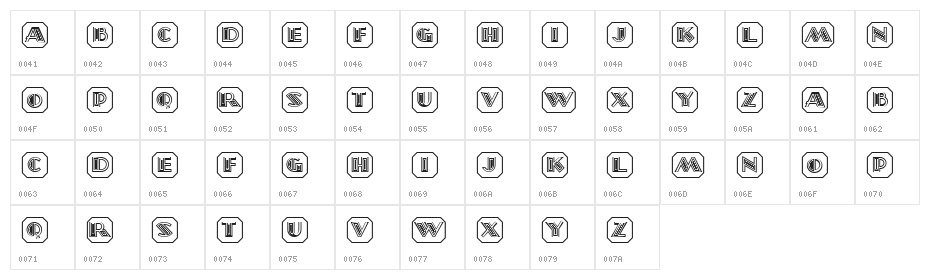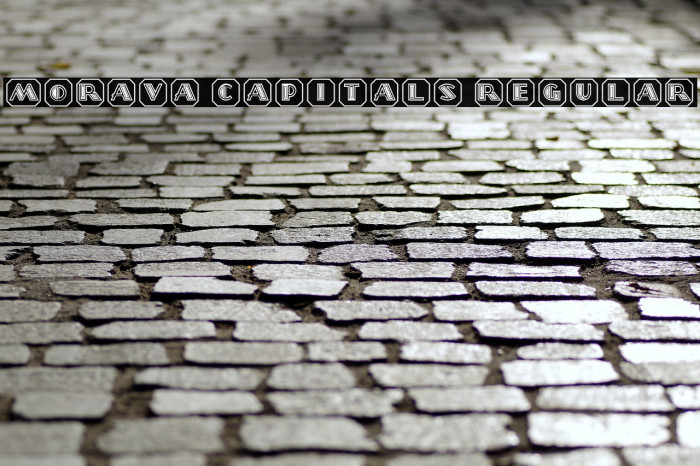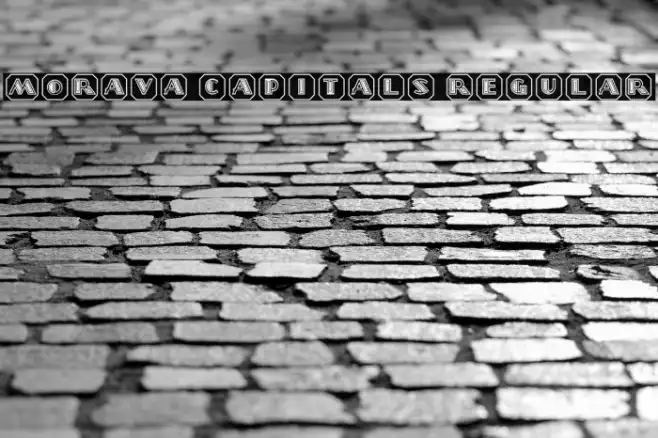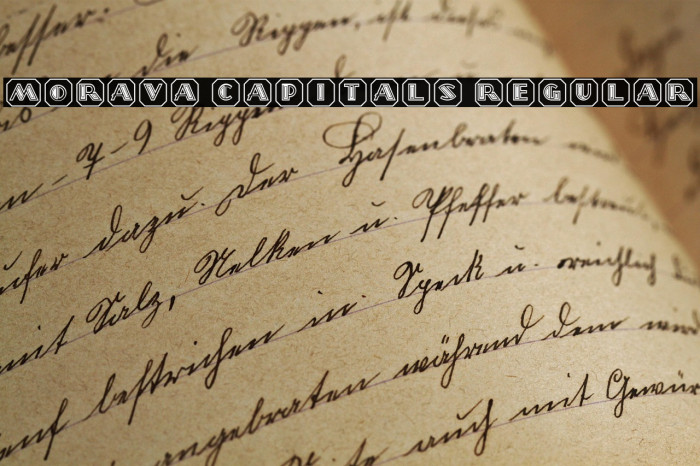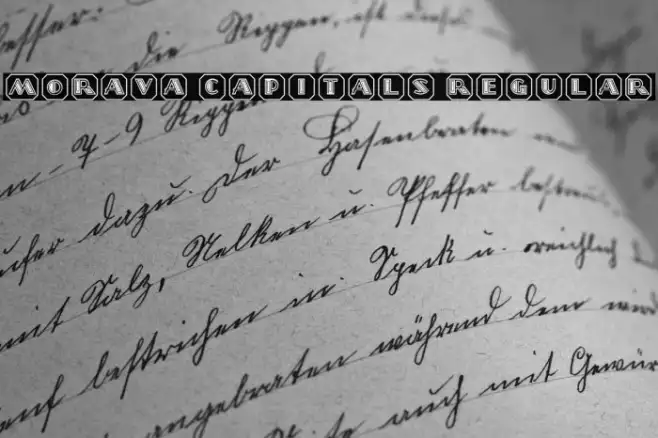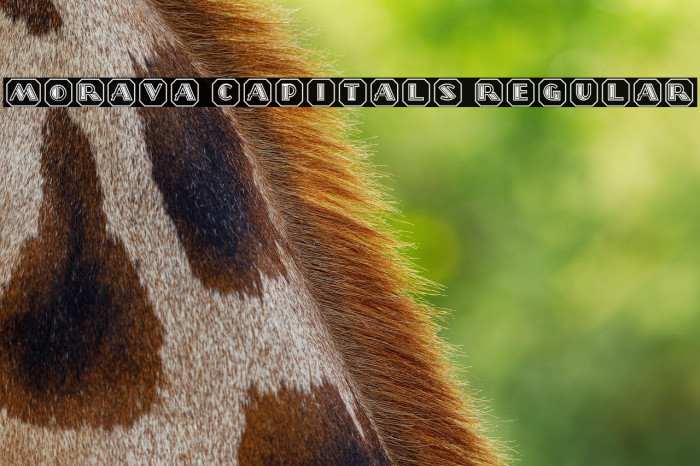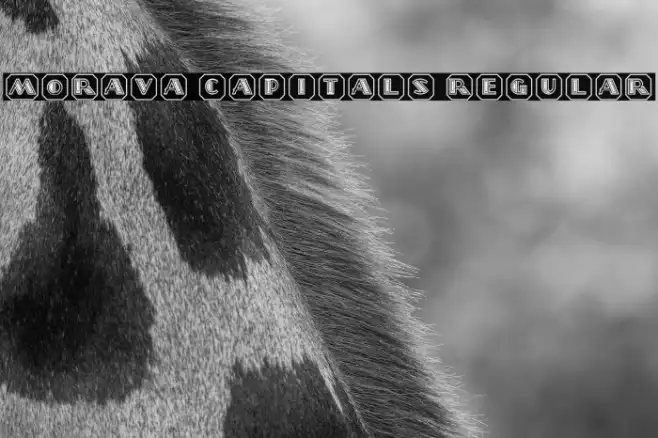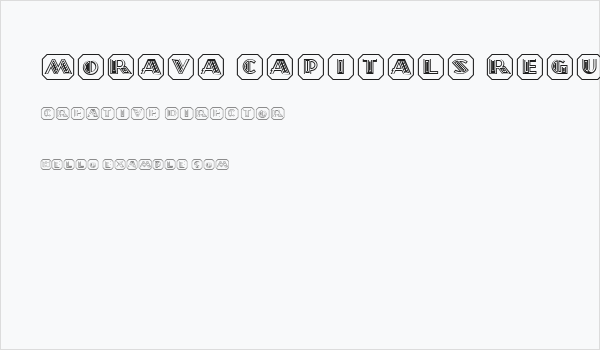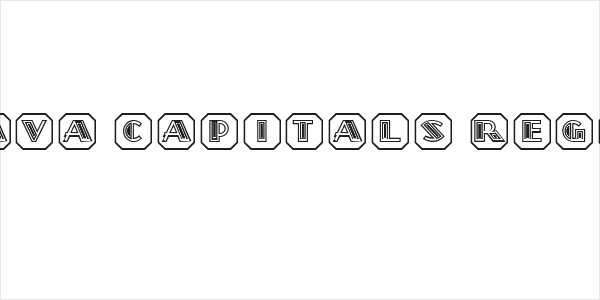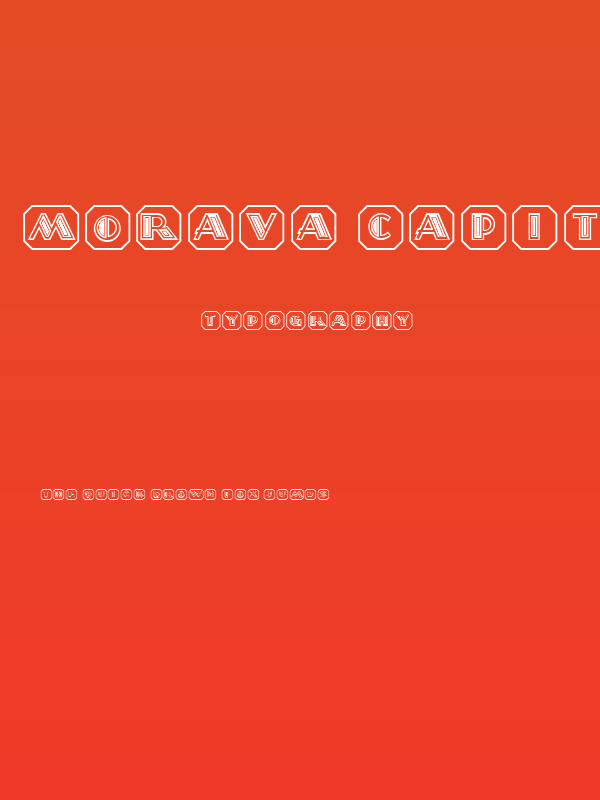
Morava Capitals Regular Font
Morava Capitals Regular Description
This font features a bold, geometric design with each character enclosed in an octagonal border. The letters are uppercase and exhibit a three-dimensional effect, achieved through the use of parallel lines that create a sense of depth. The style is reminiscent of architectural or industrial design, giving it a strong and sturdy appearance. The consistent use of octagonal shapes around each character adds a unique and cohesive element to the overall design. The font's boldness and distinct style make it suitable for attention-grabbing headlines or titles.
| Overall Style | Modern, Industrial |
| Proposed Projects | Ideal for branding, posters, signage, and any project requiring a strong, industrial aesthetic. |